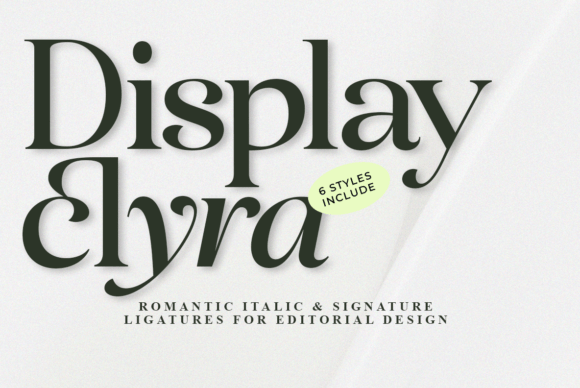
Introducing Display Elyra: Elevate Your Designs with Sophistication and Elegance
In the world of typography, a font can make or break the aesthetic of a design. For those seeking a typeface that exudes sophistication, romance, and a touch of elegance, Display Elyra emerges as a stellar choice. This high-contrast serif font, with its romantic italic nuances and signature-inspired curves, is meticulously crafted for editorial layouts and branding that demand a refined yet expressive feel.
A Versatile Typeface for Diverse Design Needs
Display Elyra is not just a font; it’s a versatile tool designed to cater to a wide array of design requirements. It comes in 6 distinctive styles, allowing designers to experiment with different looks and feels within their projects. Whether you’re working on a magazine spread, a fashion lookbook, or a luxury invitation, Display Elyra offers the flexibility to adapt to any design narrative while maintaining its unique charm.
Rich in Features: 380 Glyphs, Elegant Ligatures, and Extensive Language Support
One of the standout features of Display Elyra is its comprehensive set of 380 glyphs. This extensive character set, combined with elegant ligatures, enables designers to craft intricate and beautiful text that captures the essence of their message. Furthermore, Display Elyra offers full support for Western and Central European languages, making it an ideal choice for international projects that require a font capable of adapting to various linguistic and cultural contexts.
Crafted for Editorial Flair and Timeless Beauty
Display Elyra is more than just a typeface; it’s a statement of elegance and sophistication. Its high-contrast serif design, infused with romantic italic nuances, brings an air of luxury and refinement to any design. The font’s signature-inspired curves add a touch of uniqueness, making it perfect for designs that seek to stand out. With Display Elyra, designers can infuse their work with a timeless beauty that captivates audiences and elevates the visual impact of their projects.
Ideal for Various Design Applications
The versatility of Display Elyra makes it suitable for a multitude of design applications. Here are a few areas where it truly shines:
- Magazine Spreads: Bring elegance to editorial content with Display Elyra’s refined and expressive feel.
- Fashion Lookbooks: Elevate fashion designs with a font that exudes luxury and sophistication.
- Luxury Invitations: Make a statement with elegant and beautiful typography that sets the tone for high-end events.
- Branding: Use Display Elyra to create a lasting impression with a unique and sophisticated brand voice.
Display Elyra stands out as a premier choice for designers and crafters looking to imbue their projects with a sense of sophistication, elegance, and editorial flair. Its versatile nature, extensive feature set, and beautiful design make it an invaluable asset for any design endeavor. Whether you’re aiming to create visually stunning editorial layouts, captivating fashion content, or luxurious branding, Display Elyra is poised to elevate your designs to new heights of aesthetic excellence.
In conclusion, Display Elyra is not just a font; it’s a design companion that offers endless possibilities for creative expression. Its blend of sophistication, elegance, and versatility makes it a valuable addition to any designer’s toolkit. Experience the transformative power of Display Elyra and discover new dimensions of beauty and elegance in your designs.